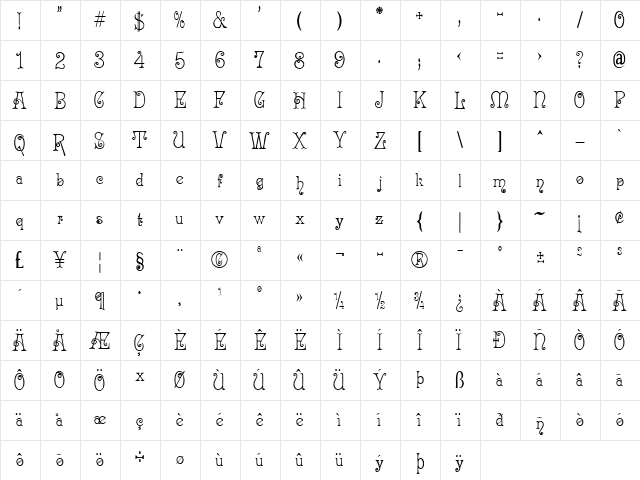
Acadian Regular
| Foundry | David F. Nalle |
| Designer | H. H. Thorp (1883) |
Design Context for Acadian Typeface
Acadian is a composed and adaptable typeface that performs quietly and consistently across a wide range of design contexts.